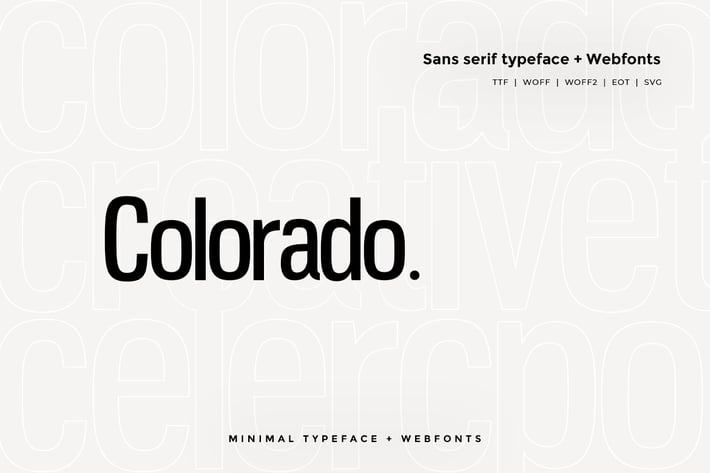
Colorado - Modern Typeface + WebFont
Colorado Sans Typeface
Colorado Sans is a modern and Minimal Sans Serif typeface, Colorado Sans can keep the minimalism at its level best and is a Perfect choice for Creative and Classic Typography Designs.
Font Designed and Crafted by Gabriel Garcia, Distributed by Webhance Studio.